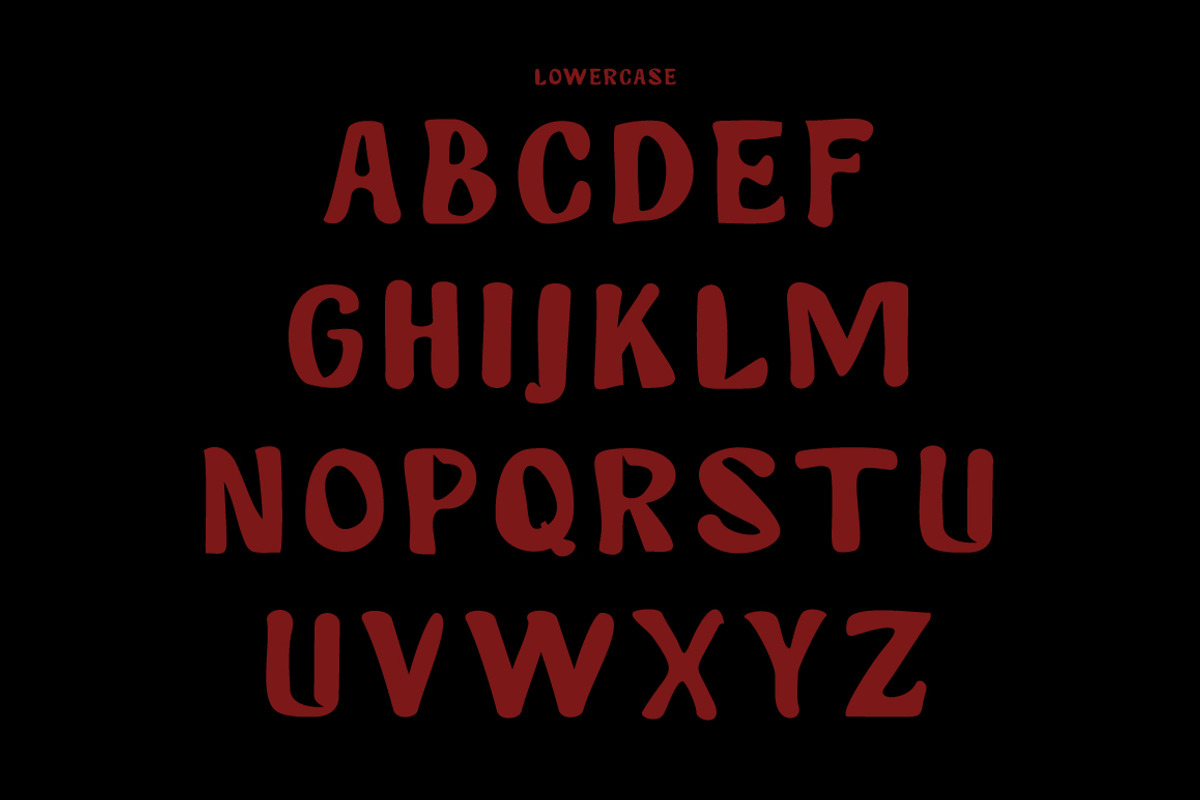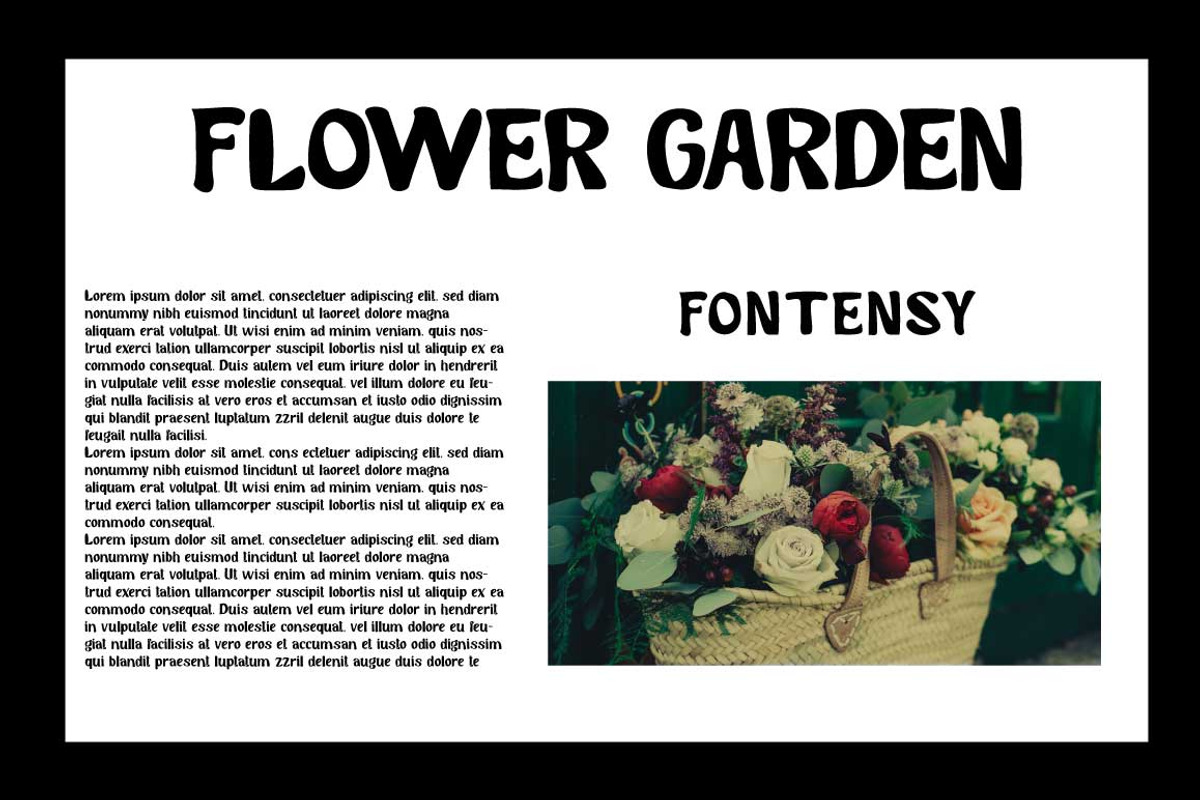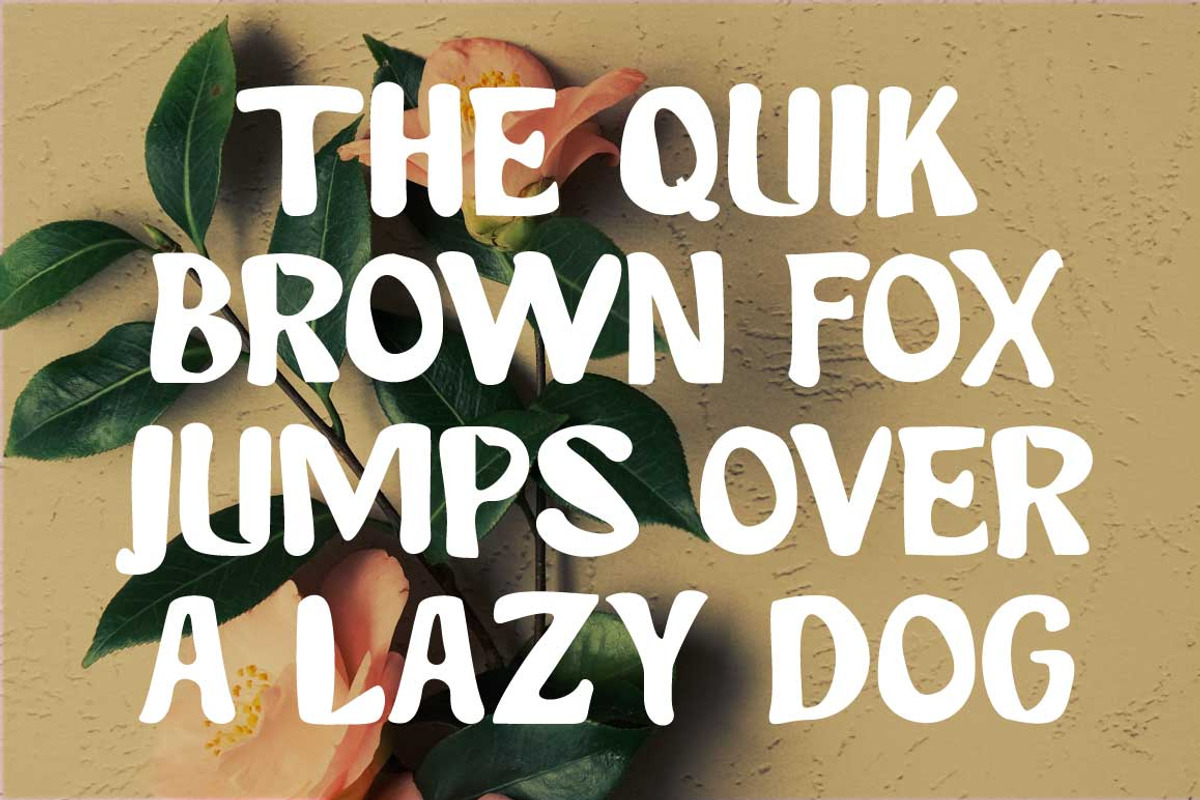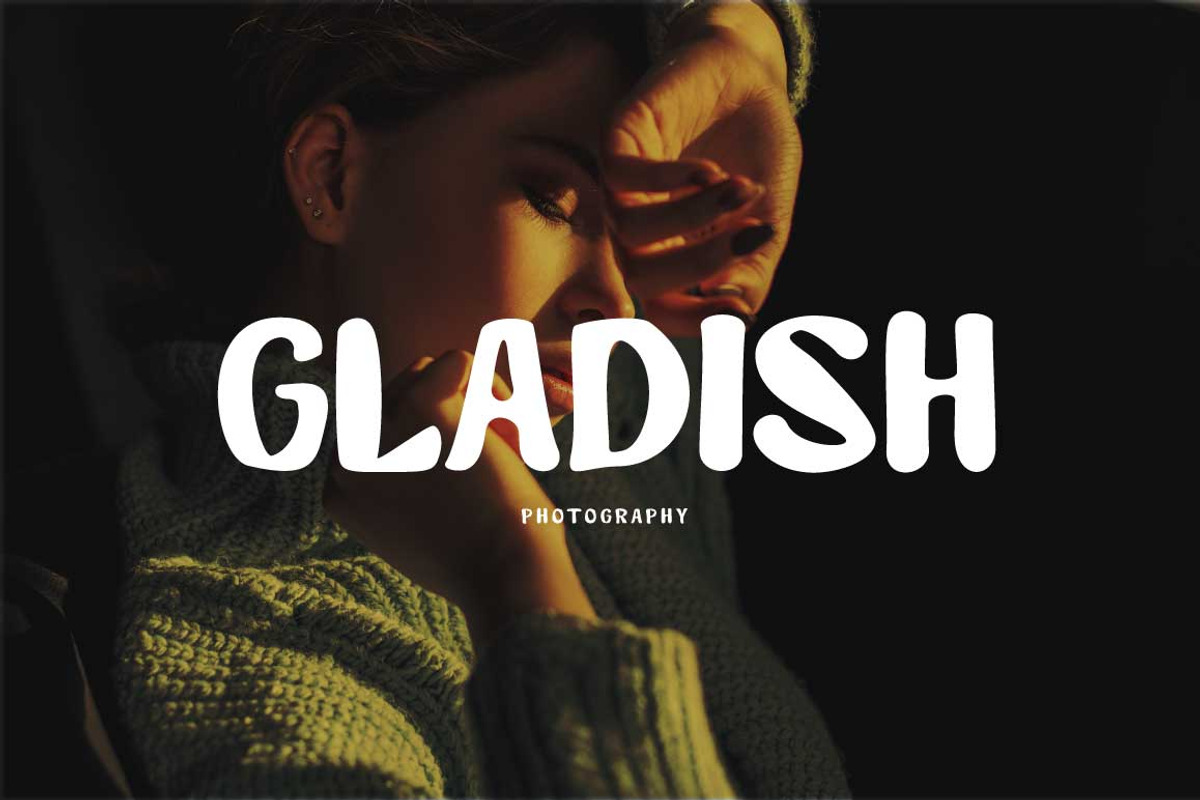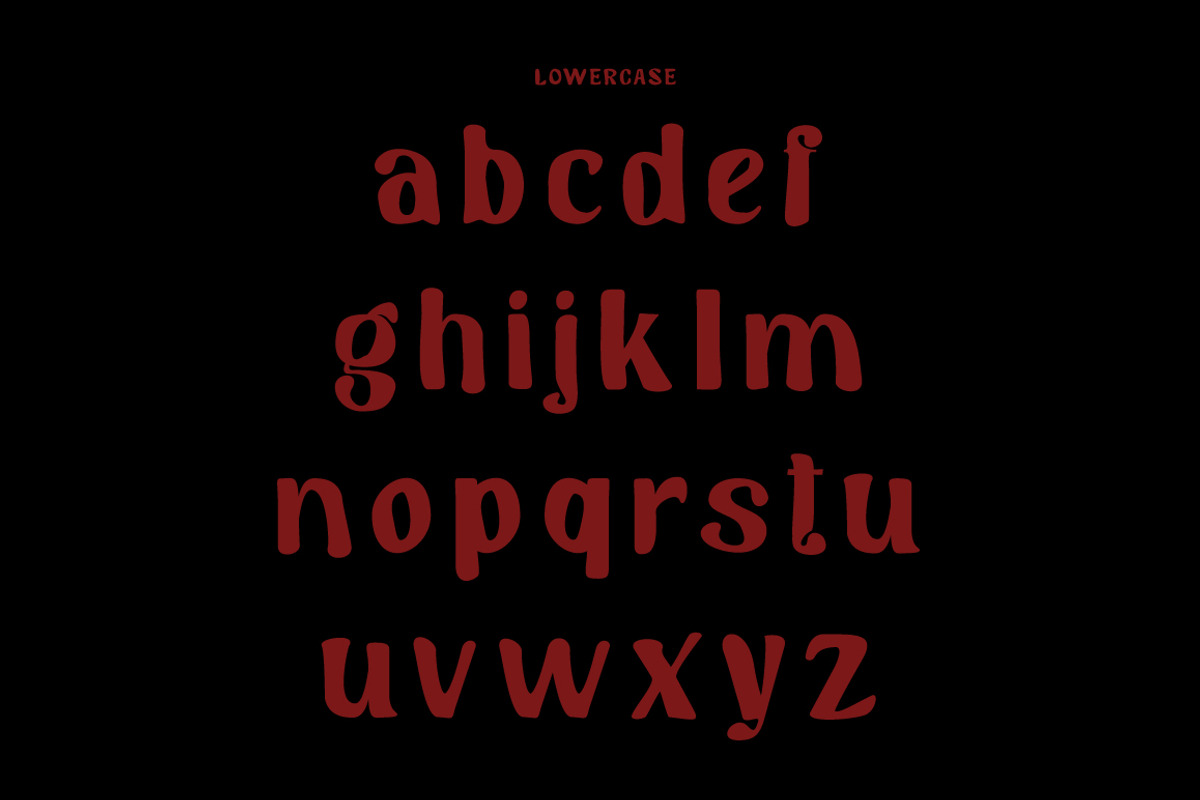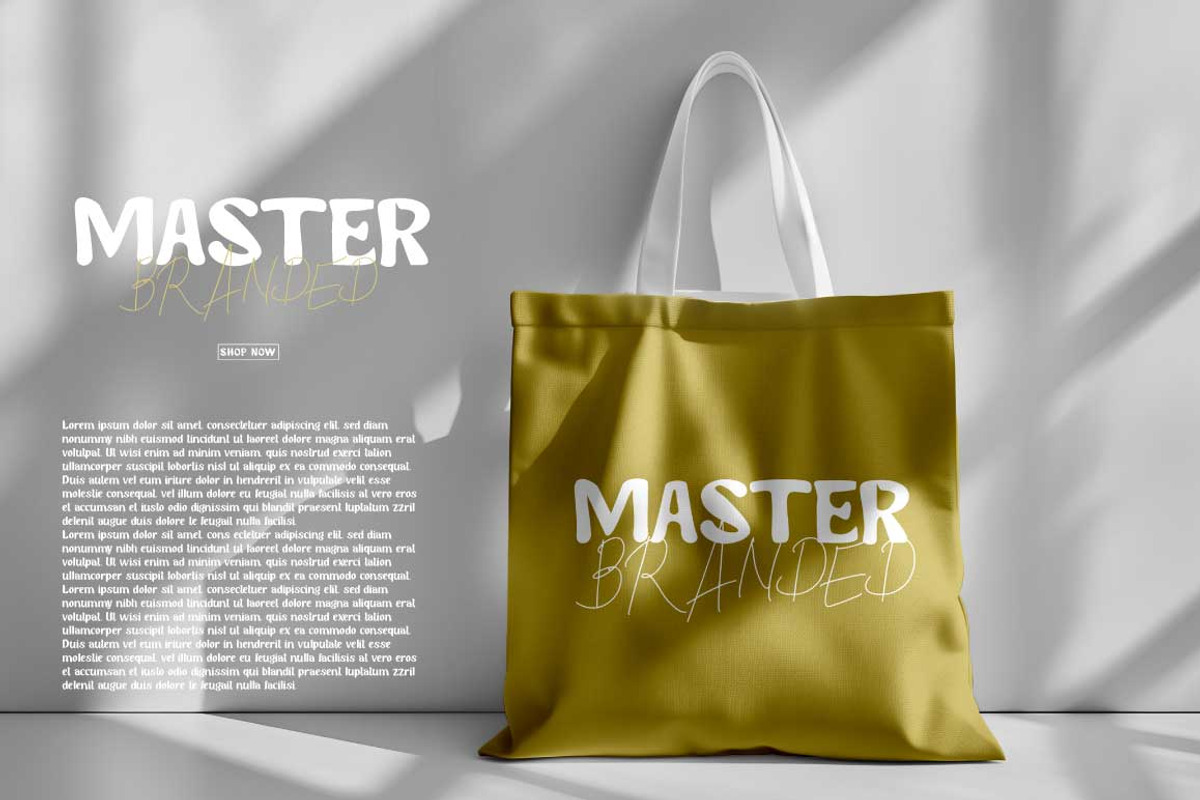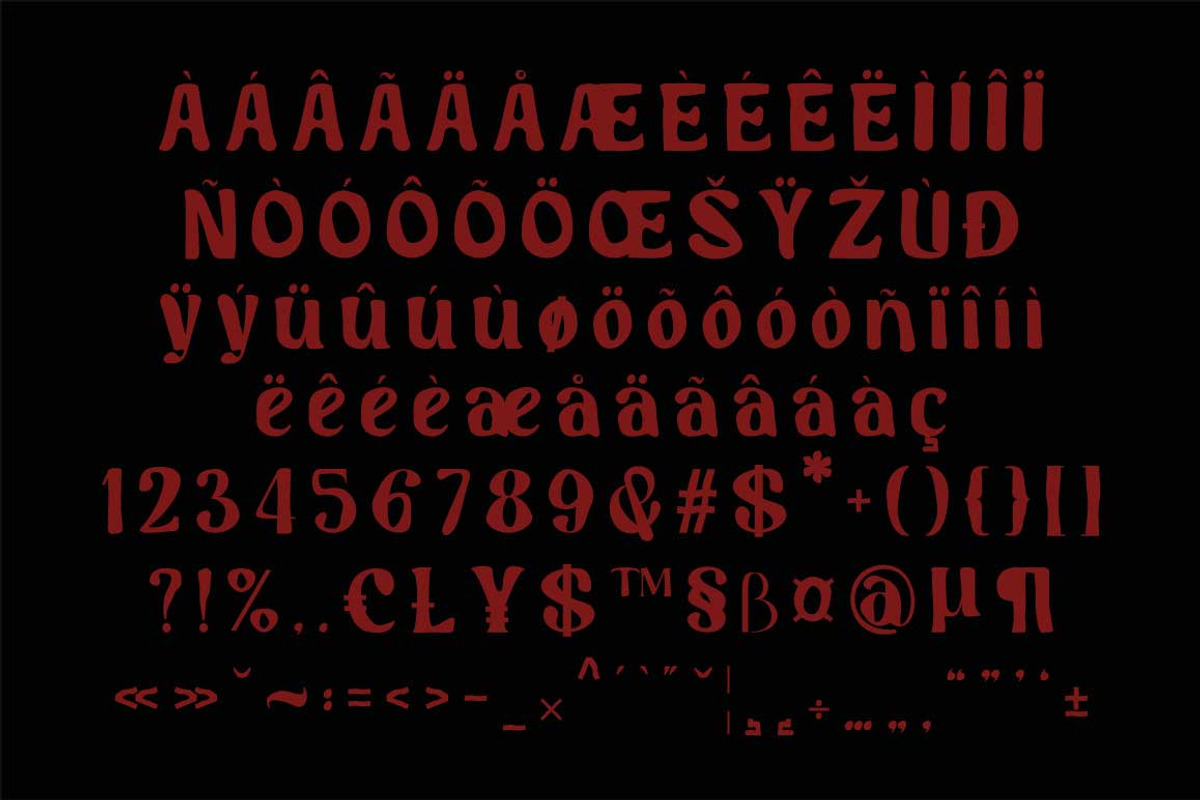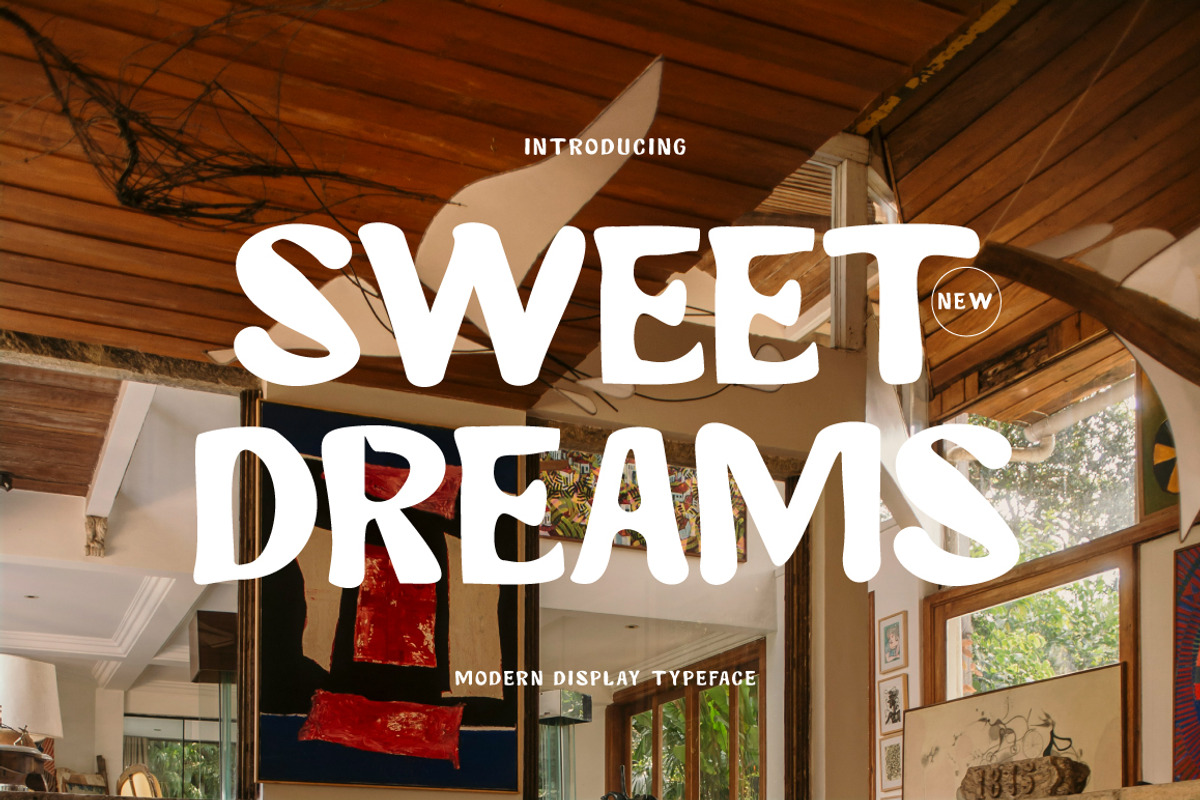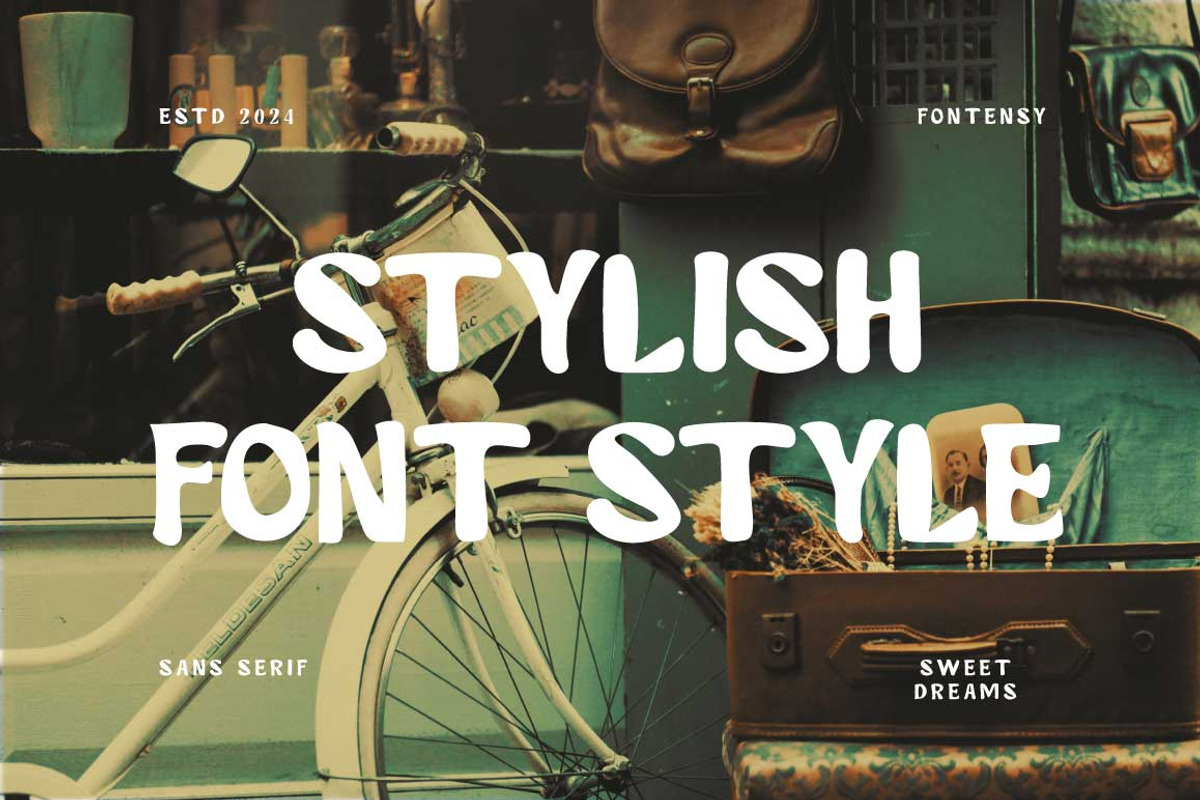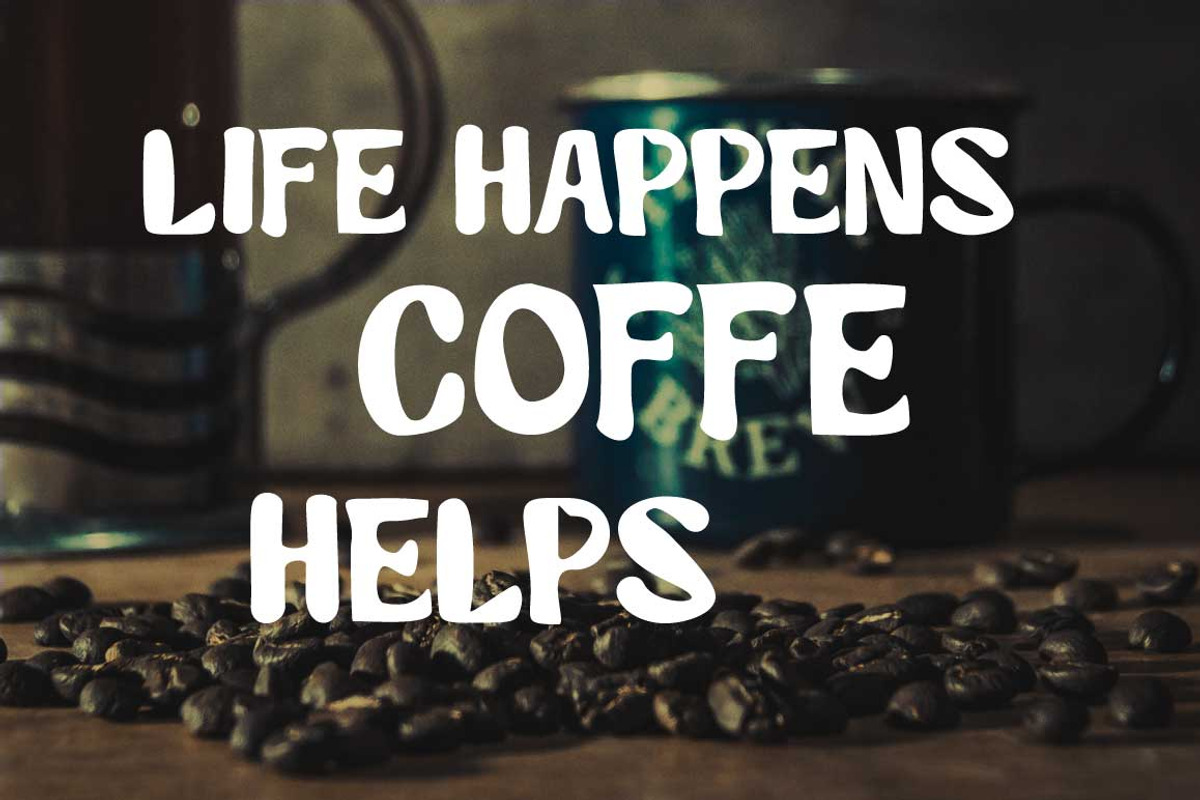
Sweet Dreams Sans Serif Font
I'm present to you, new retro typeface called Sweet Dreams !
Sweet Dreams is a stylish font that is both retro and bold font. It's thick curves give a 70s groovy vibe with the serifs bringing it slightly back to traditional
Sweet Dreams fits perfectly into those nostalgic moodboards and vintage logos. It come with a unique lower and uppercase plus numbers, punctuation & multilingual letters.